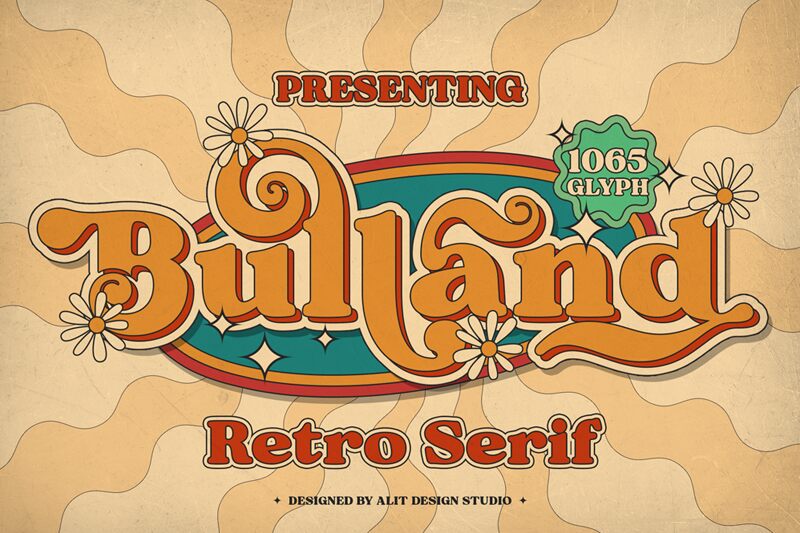
Bulland, a display font crafted by Alit Design, exudes a striking retro charm with its serif style that nods to the past while firmly planting itself in modern design. Its extra-bold weight commands attention, making it an assertive choice for headlines and branding endeavors where confidence is key. The semi-expanded width of Bulland adds a touch of grandeur, allowing for an impactful presence on both digital screens and printed materials.
The aesthetic allure of Bulland lies in its ability to blend vintage vibes with contemporary crispness, offering designers a versatile tool for creating eye-catching visuals. Whether it's for nostalgic posters, stylish packaging, or dynamic web design, this typeface's distinctive character ensures that your message not only stands out but also resonates with an air of sophistication.
Embrace the unique flair of Bulland in your next creative project and let its retro serifs tell a story that's both timeless and refreshingly new.